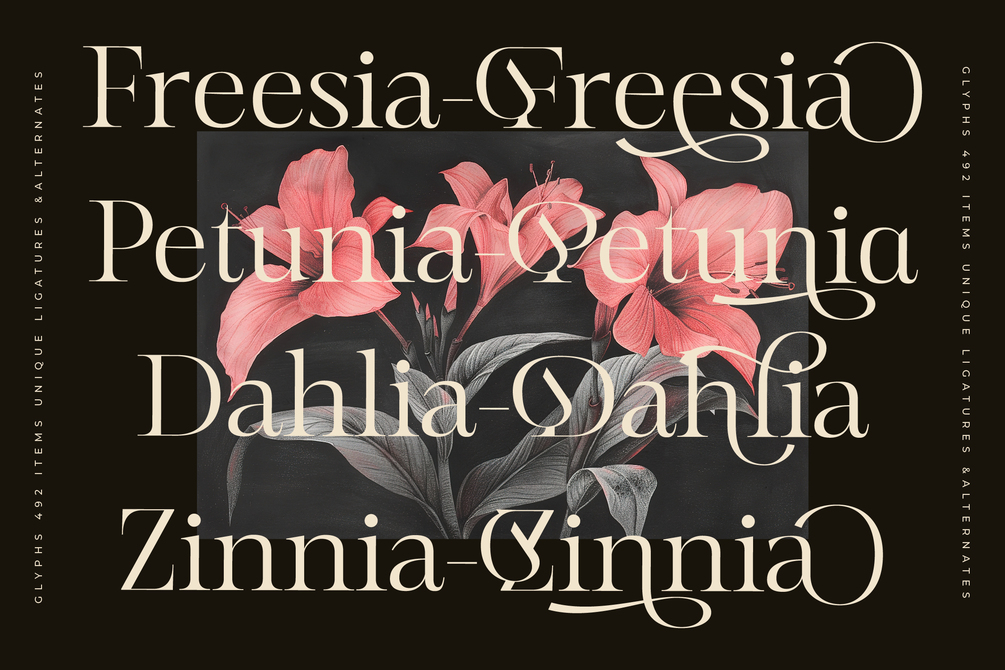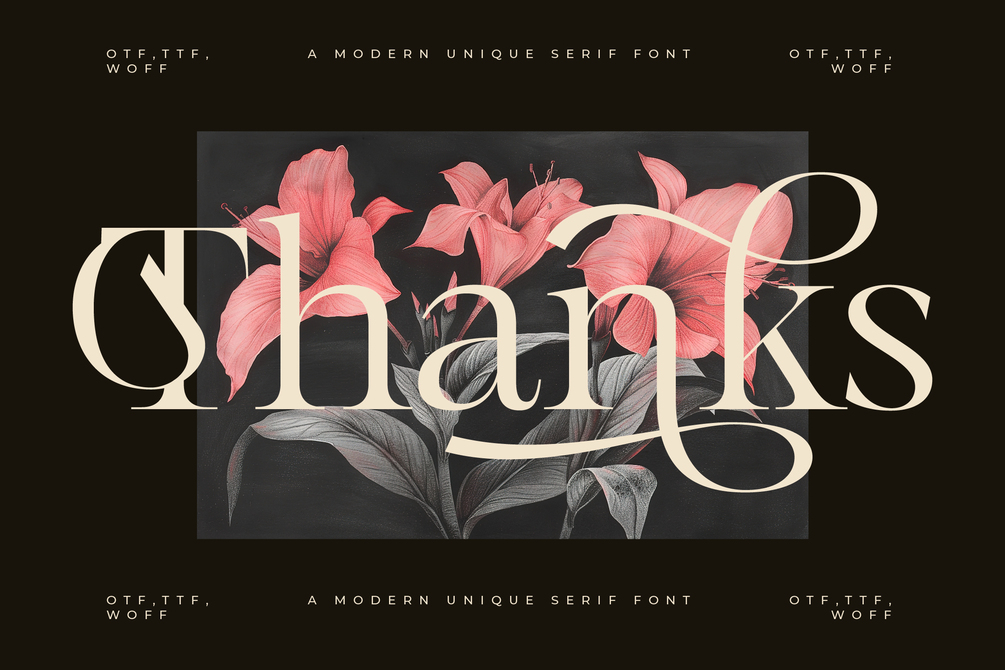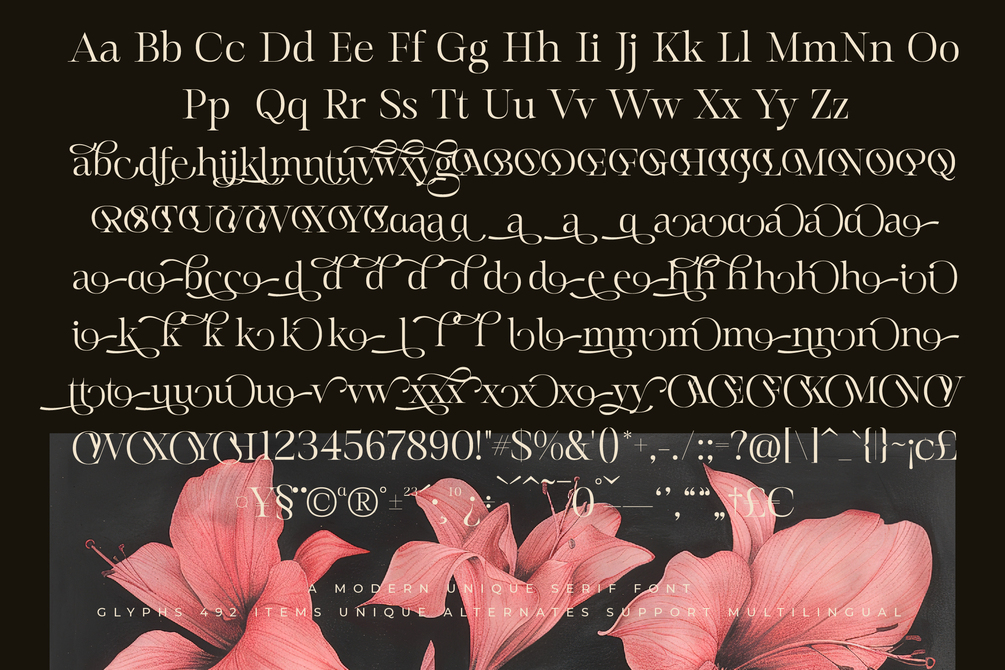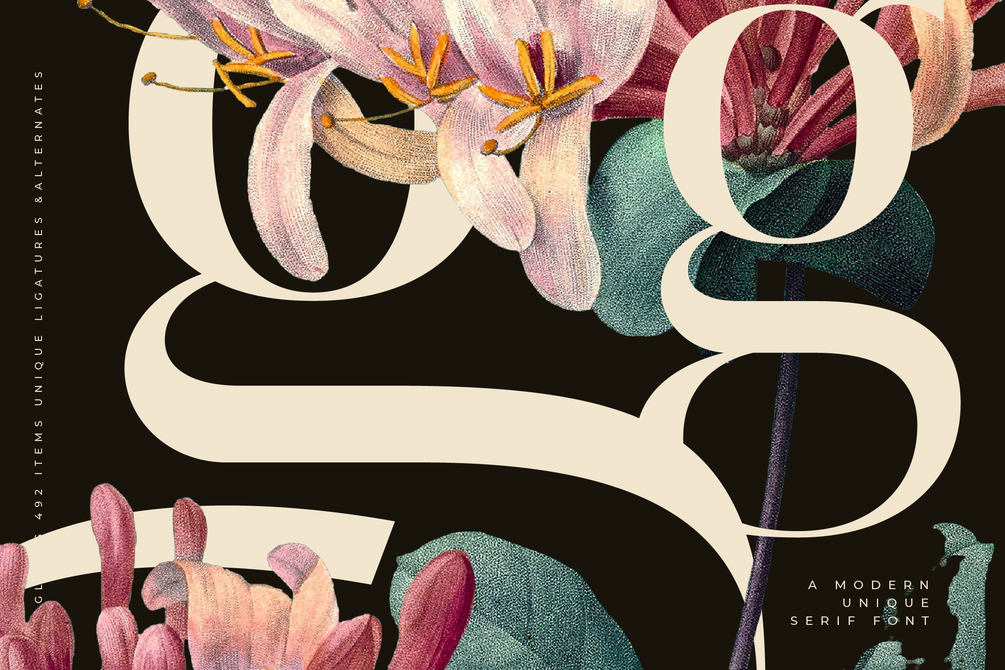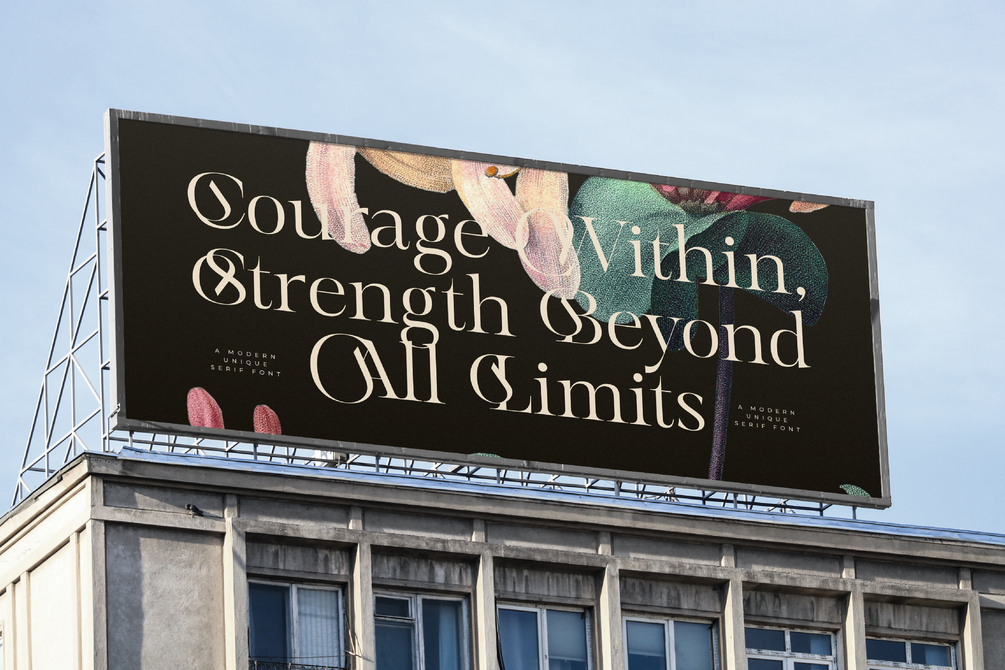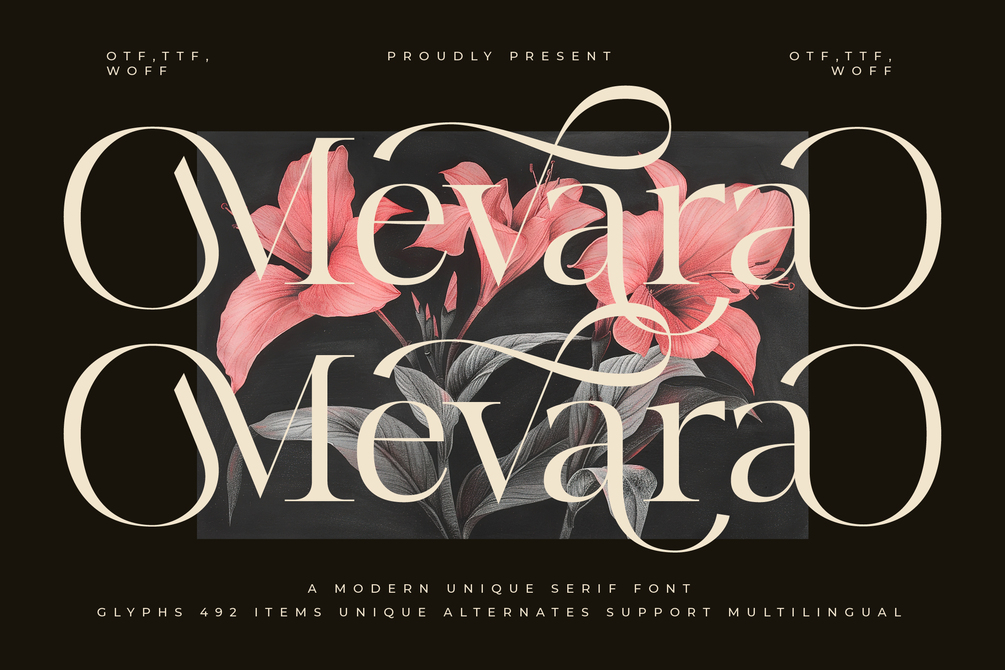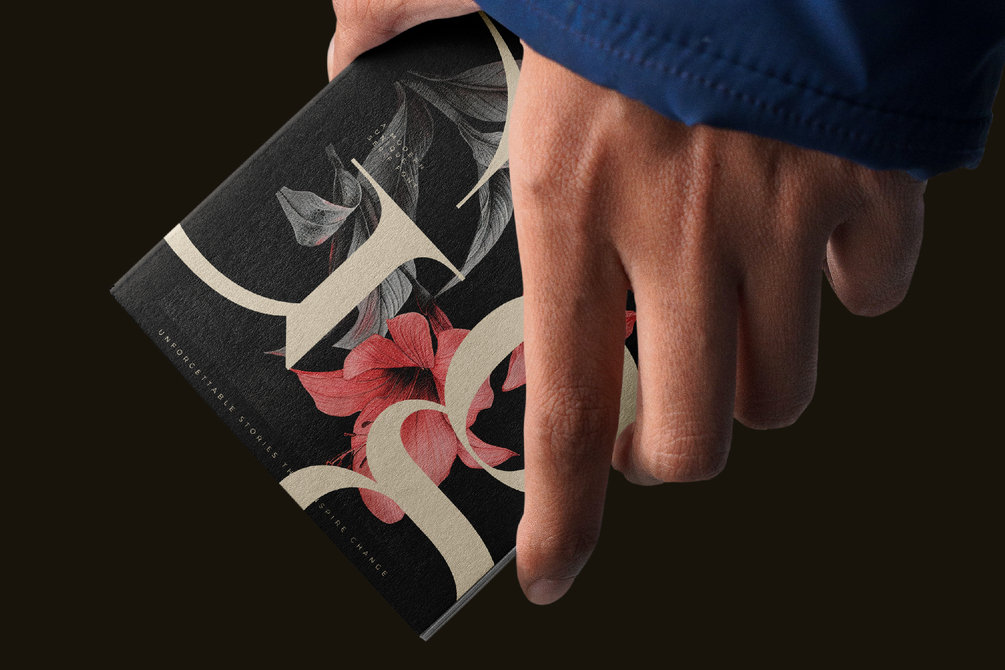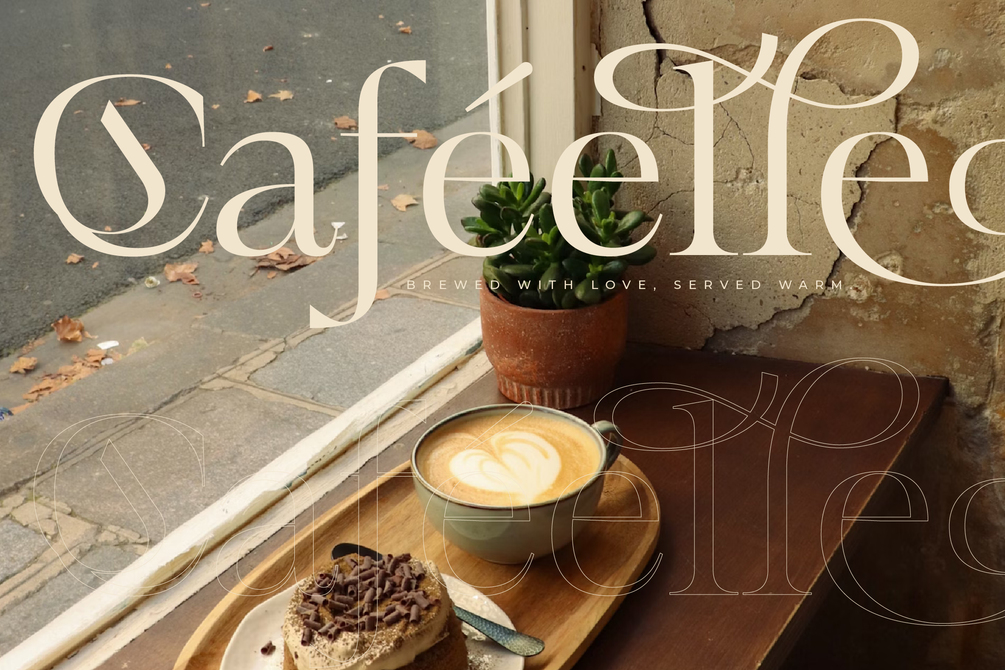
Mevara - Elegant Serif with Flourish
Mevara is a refined serif font that blends elegance with firmness, offering a balance between simplicity and subtle flourishes. Inspired by Fractur Calligraphy, it provides over 30 uppercase and 80 lowercase alternates, enabling extensive customization. Mevara supports multiple languages and allows easy access to alternates through numbers or the Private Use Area, making it ideal for projects requiring both style and functionality. Its understated sophistication makes it perfect for logos, branding, and creative designs, offering versatility and adaptability for unique typographic expressions.